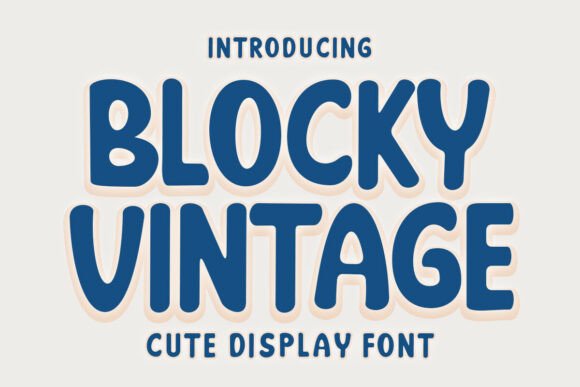
The Retro Charm of Blocky Vintage Font
I’ll never forget the design project that led me to discover Blocky Vintage Font. I was working on a branding campaign for a new coffee shop, and I needed a font that would evoke a fun, friendly, and cheerful retro feel. After hours of scouring the internet for the perfect font, I stumbled upon Blocky Vintage, and it was love at first sight! 💕
The bold, rounded letterforms instantly transported me to a bygone era of classic advertising and nostalgic charm. I knew right then and there that Blocky Vintage was the perfect fit for my project. In this article, I’ll share with you why I’m obsessed with this font, its features, and how to make the most of it in your designs.
An Honest Review of Blocky Vintage Font
- ✅ Bold and eye-catching: Blocky Vintage Font is perfect for designs that need to stand out from the crowd.
- ✅ Playful and cheerful: The font’s rounded letterforms and subtle imperfections evoke a sense of nostalgia and fun.
- ✅ Versatile: Blocky Vintage works well for titles, headings, and short paragraphs, making it a great addition to any design project.
- ✅ Easy to read: Despite its bold and playful nature, Blocky Vintage is surprisingly easy to read, even at smaller sizes.
While Blocky Vintage Font is an amazing addition to any design project, it’s not without its limitations. ⚠️ Here are a few things to keep in mind:
- ⚠️ Not suitable for body text: Due to its bold nature, Blocky Vintage is best used for headings and titles rather than body text.
- ⚠️ Limited OpenType features: While Blocky Vintage has some great OpenType features, it’s not as extensive as some other fonts on the market.
The Designer Inspiration Behind Blocky Vintage
Blocky Vintage Font was inspired by the classic advertising and signage of the 1950s and 60s. The designer, who wishes to remain anonymous, drew inspiration from vintage billboards, storefronts, and retro packaging. The result is a font that’s equal parts nostalgic and modern.
Q: What is Blocky Vintage Font?
A: Blocky Vintage Font is a bold, rounded display font that evokes a fun, friendly, and cheerful retro feel.
Q: What can I use Blocky Vintage Font for?
A: Blocky Vintage Font is perfect for designs that need to be eye-catching, playful, and nostalgic, such as branding, packaging, and advertising.
Q: Is Blocky Vintage Font easy to read?
A: Despite its bold and playful nature, Blocky Vintage Font is surprisingly easy to read, even at smaller sizes.